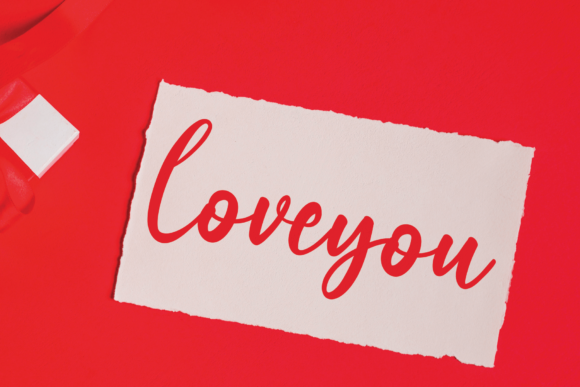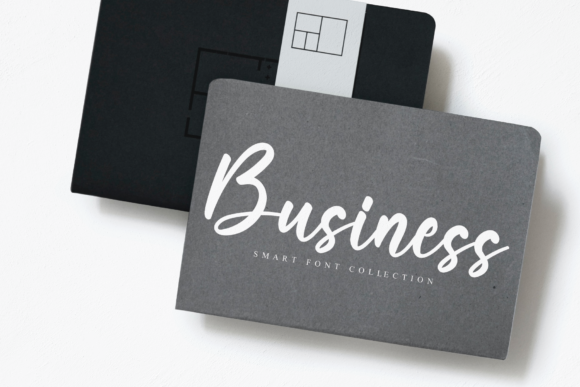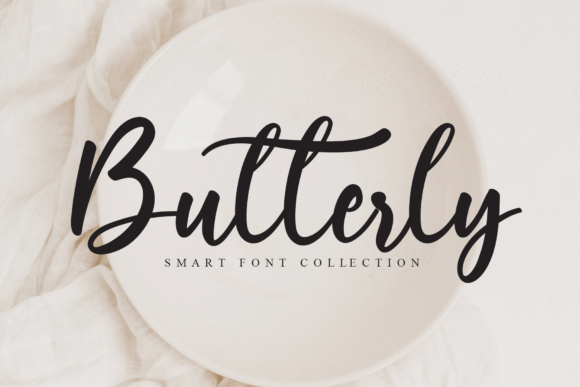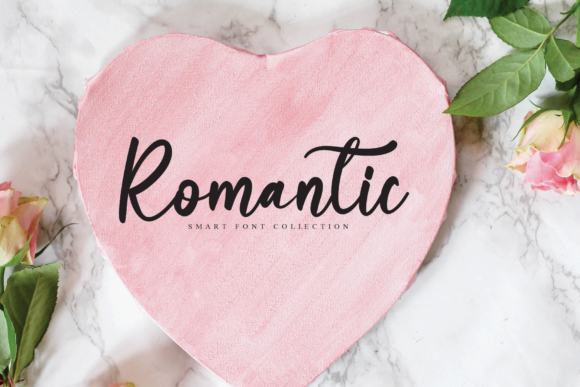
Introducing Buffalo Font: The Epitome of Elegance and Versatility
Are you on the hunt for a font that exudes elegance, sophistication, and a touch of whimsy? Look no further than the Buffalo Font, a delicate and handwritten typeface that is sure to capture your heart. With its distinct and well-rounded letters, this font is a masterpiece that will elevate your designs to new heights.
The Unique Charm of Buffalo Font
Buffalo Font boasts a unique charm that sets it apart from other fonts. Its handwritten style is reminiscent of a bygone era, evoking feelings of nostalgia and romance. The letters are carefully crafted to create a sense of fluidity and movement, making it perfect for designs that require a touch of elegance and sophistication.
Key Features of Buffalo Font
- Delicate and Elegant: Buffalo Font is characterized by its delicate and elegant strokes, making it perfect for designs that require a touch of sophistication.
- Handwritten Style: The font’s handwritten style gives it a unique and personal touch, making it perfect for designs that require a human touch.
- Distinct and Well-Rounded Letters: The font’s letters are distinct and well-rounded, making it easy to read and recognize.
- Versatile: Buffalo Font is incredibly versatile, making it perfect for a wide range of designs, from wedding invitations to branding and packaging.
Uses of Buffalo Font
Buffalo Font is a versatile typeface that can be used in a variety of designs, including:
- Wedding Invitations: The font’s elegant and sophisticated style makes it perfect for wedding invitations, save-the-date cards, and other wedding-related designs.
- Branding and Packaging: Buffalo Font can be used to create stunning brand identities, product labels, and packaging designs that require a touch of elegance and sophistication.
- Stationery and Paper Crafts: The font’s handwritten style makes it perfect for stationery and paper crafts, such as greeting cards, journals, and planners.
- Digital Designs: Buffalo Font can be used in digital designs, such as social media graphics, blog headers, and website designs.
Why Choose Buffalo Font?
There are many reasons why you should choose Buffalo Font for your next design project. Here are a few:
- Unique Style: Buffalo Font has a unique style that sets it apart from other fonts.
- Elegant and Sophisticated: The font’s elegant and sophisticated style makes it perfect for designs that require a touch of luxury and refinement.
- Versatile: Buffalo Font is incredibly versatile, making it perfect for a wide range of designs.
- Easy to Read: The font’s letters are distinct and well-rounded, making it easy to read and recognize.
In conclusion, Buffalo Font is a delicate and elegant handwritten font that is sure to capture your heart. With its distinct and well-rounded letters, this font is a masterpiece that will elevate your designs to new heights. Its versatility, elegance, and sophistication make it perfect for a wide range of designs, from wedding invitations to branding and packaging. So why wait? Fall in love with Buffalo Font and use it to create spectacular designs that will leave a lasting impression.
Tips and Tricks for Using Buffalo Font
Here are a few tips and tricks for using Buffalo Font in your designs:
- Pair it with Other Fonts: Buffalo Font can be paired with other fonts to create stunning font combinations.
- Experiment with Colors: The font’s elegance and sophistication can be enhanced by experimenting with different colors and textures.
- Use it for Headings and Titles: Buffalo Font is perfect for headings and titles, making it perfect for designs that require a touch of elegance and sophistication.
With these tips and tricks, you can create stunning designs that showcase the beauty and elegance of Buffalo Font.